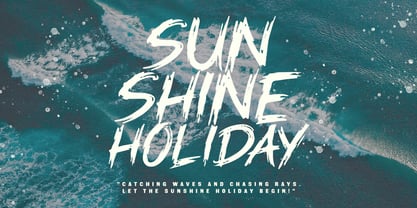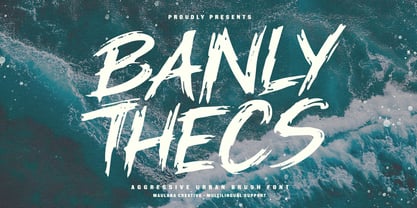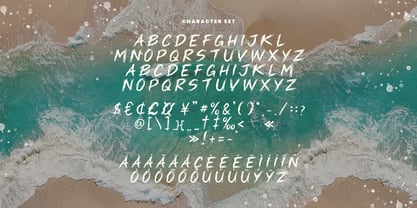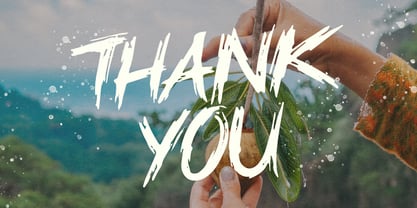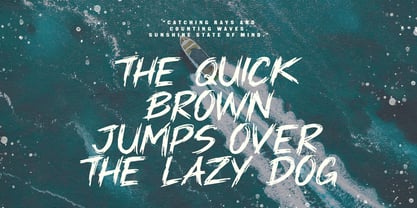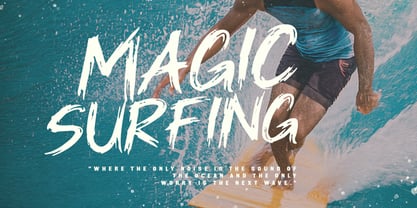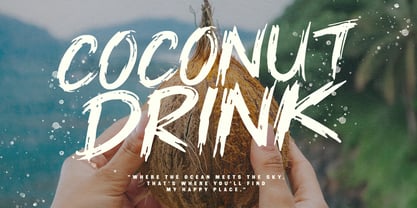
MC Banly Thecs
by Maulana Creative
The MC Banly Thecs Font Family was designed by Gilang Maulana and published by Maulana Creative. MC Banly Thecs contains 1 styles. More about this family
Banly Thecs is a bold, aggressive urban brush font designed to make a powerful statement. With its raw, hand-painted strokes and high-energy texture, this font captures the untamed spirit of street art and the adrenaline of extreme sports. While its "aggressive" nature makes it perfect for heavy metal branding, action posters, and edgy, it carries a surprising versatility that shines in tropical and summer themes—bringing a gritty, "rebel surfer" vibe to beachwear, travel blogs, and ocean-side events. Whether you are catching waves or conquering the concrete jungle, Banly Thecs provides the raw impact your designs need.
Designers: Gilang Maulana
Foundry: Maulana Creative